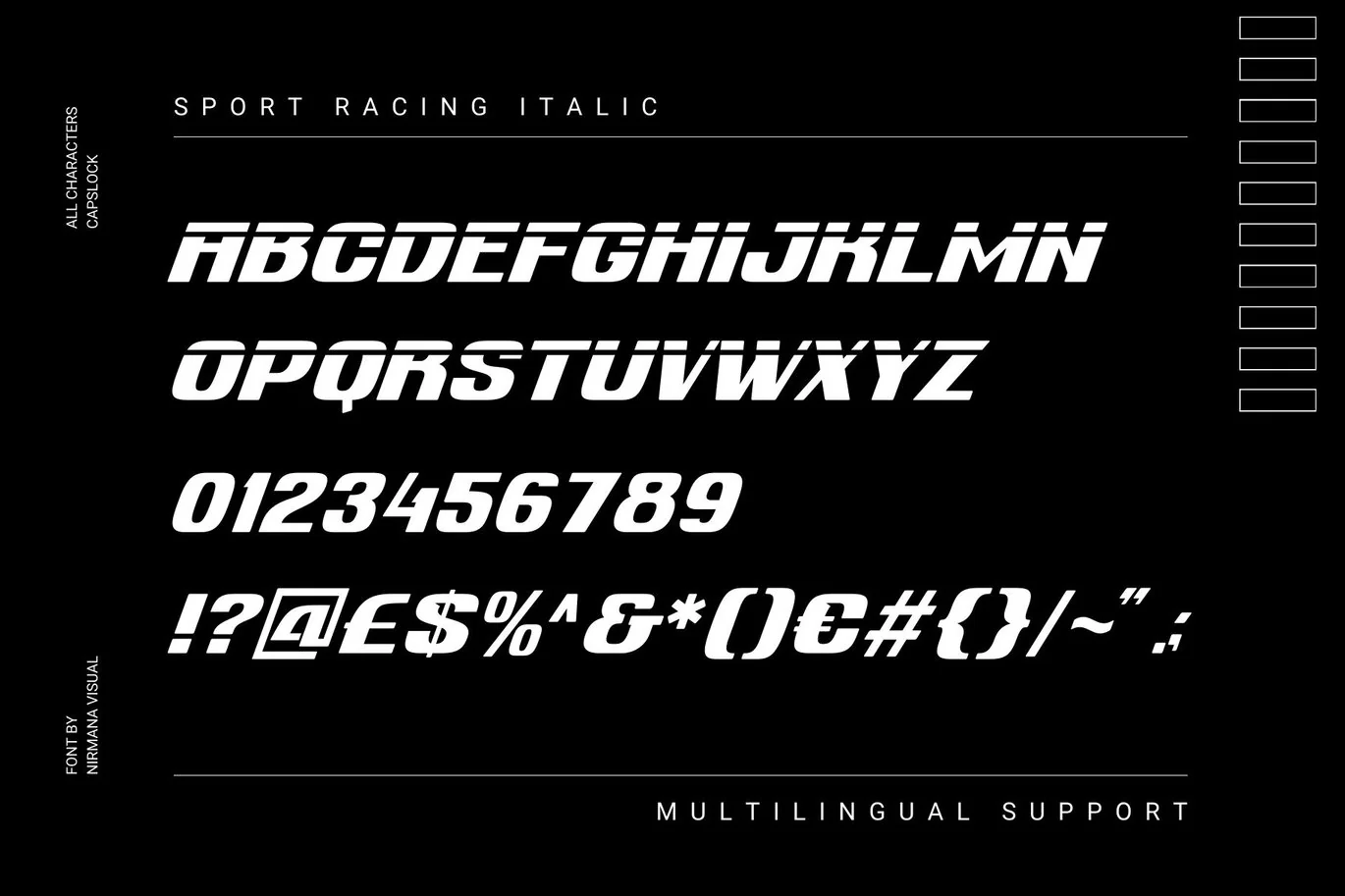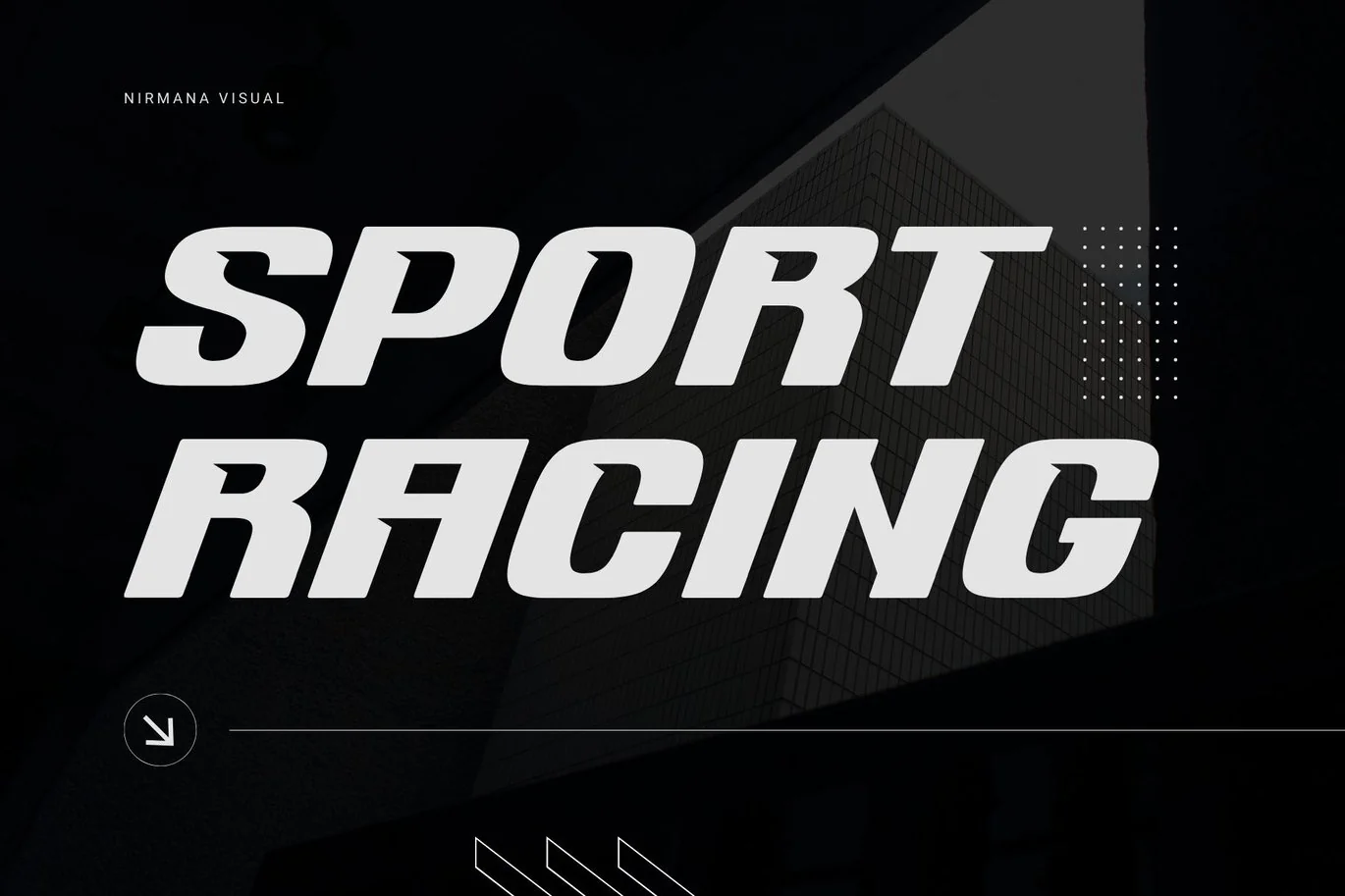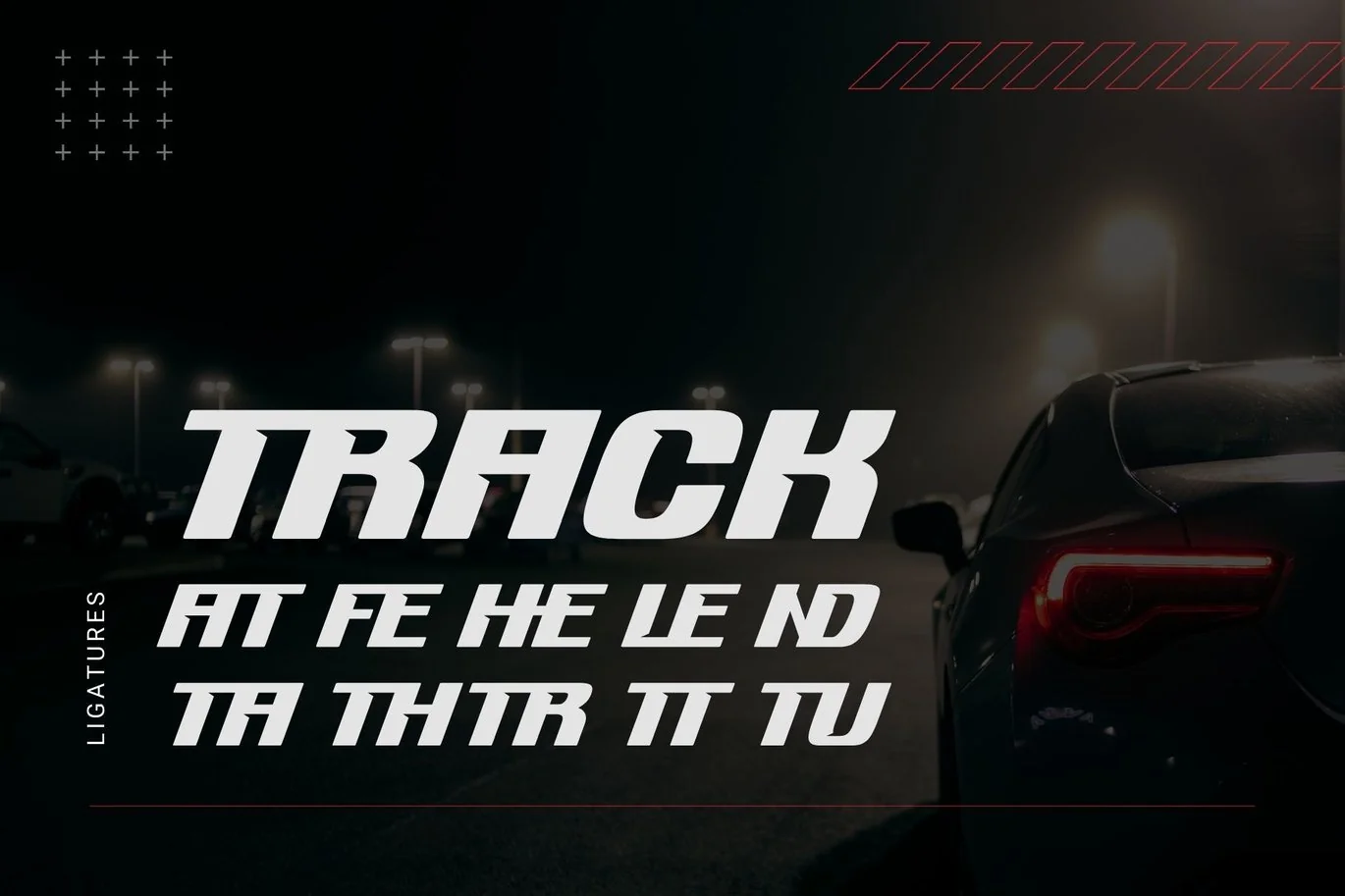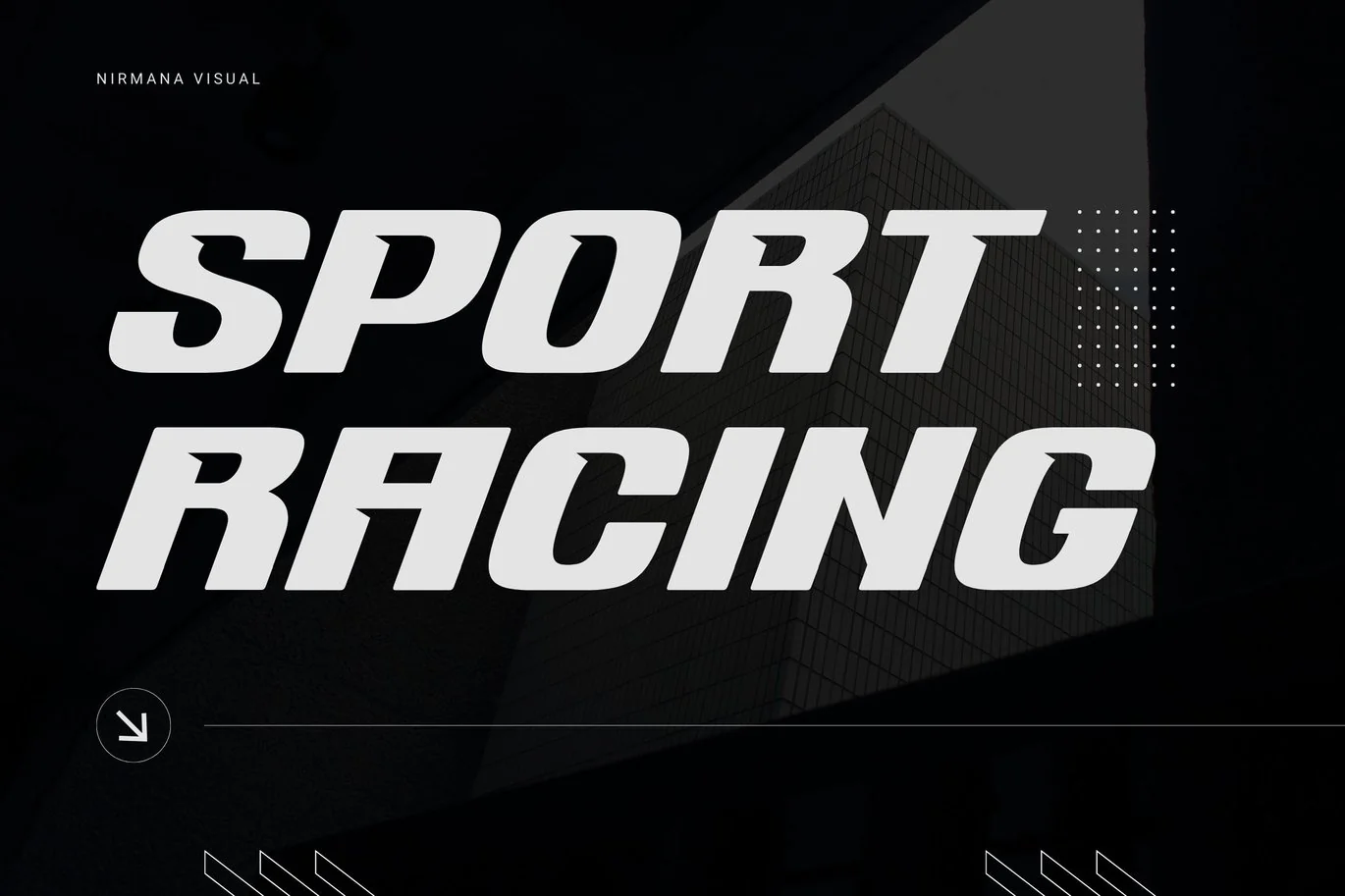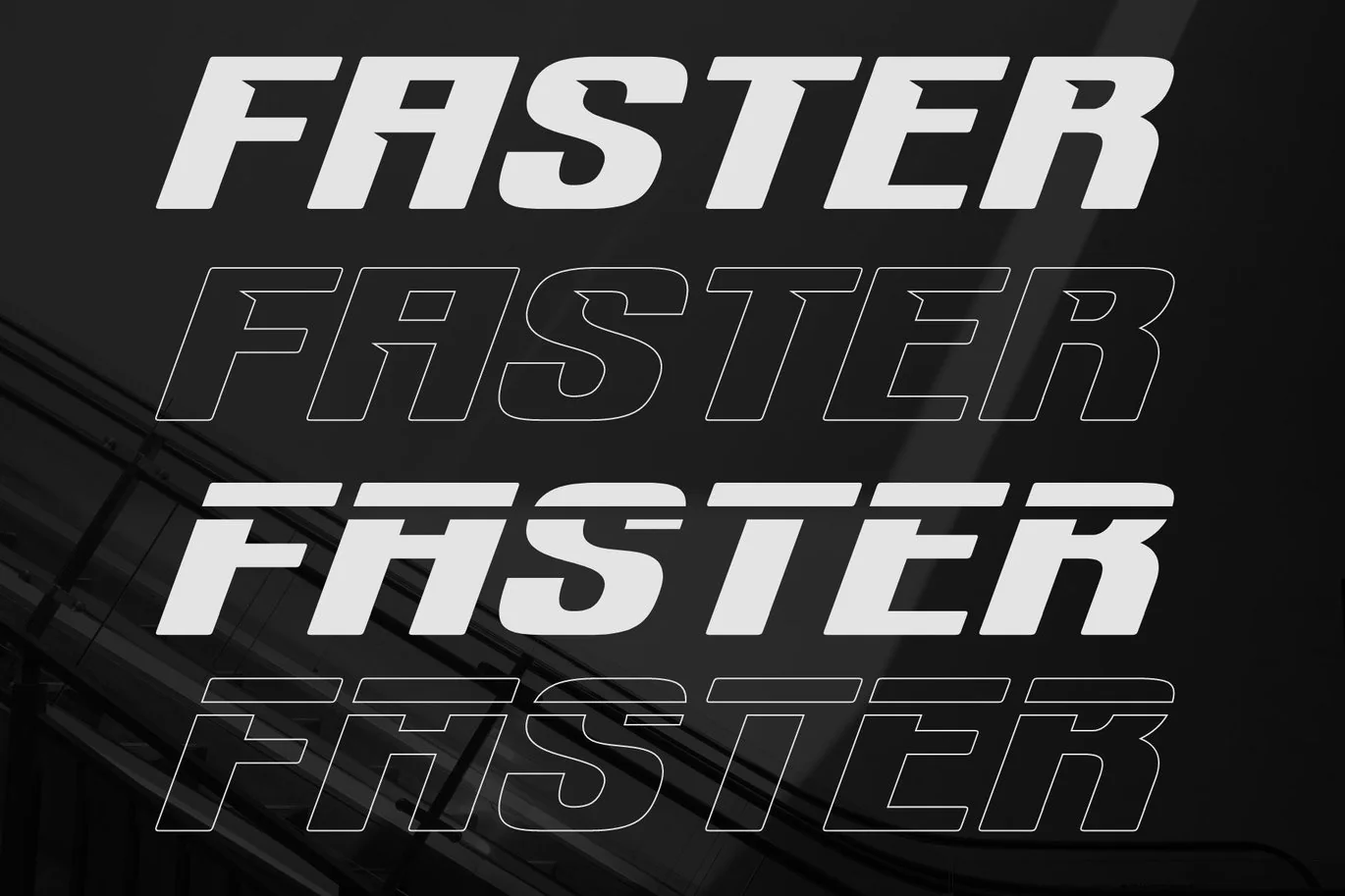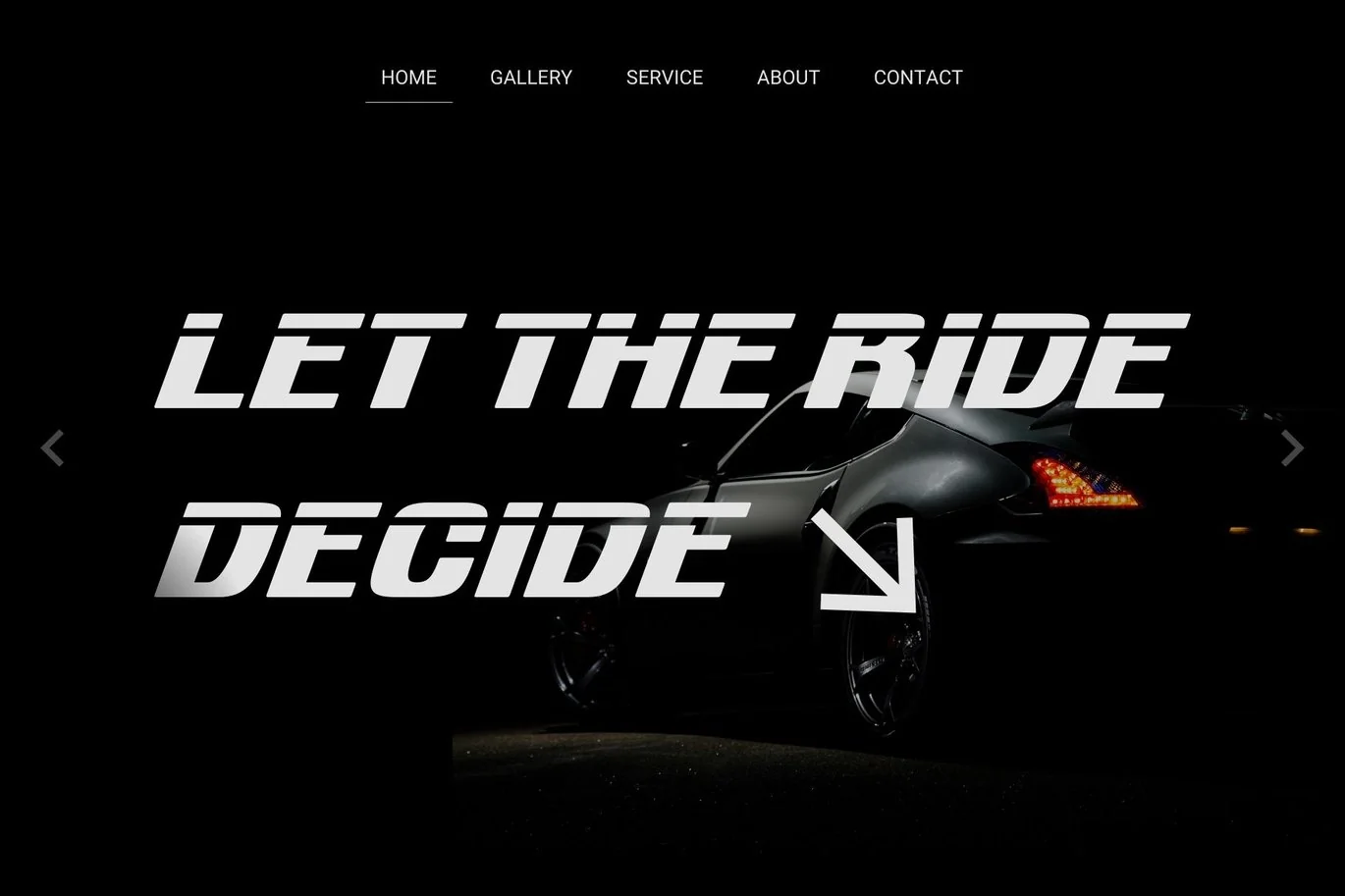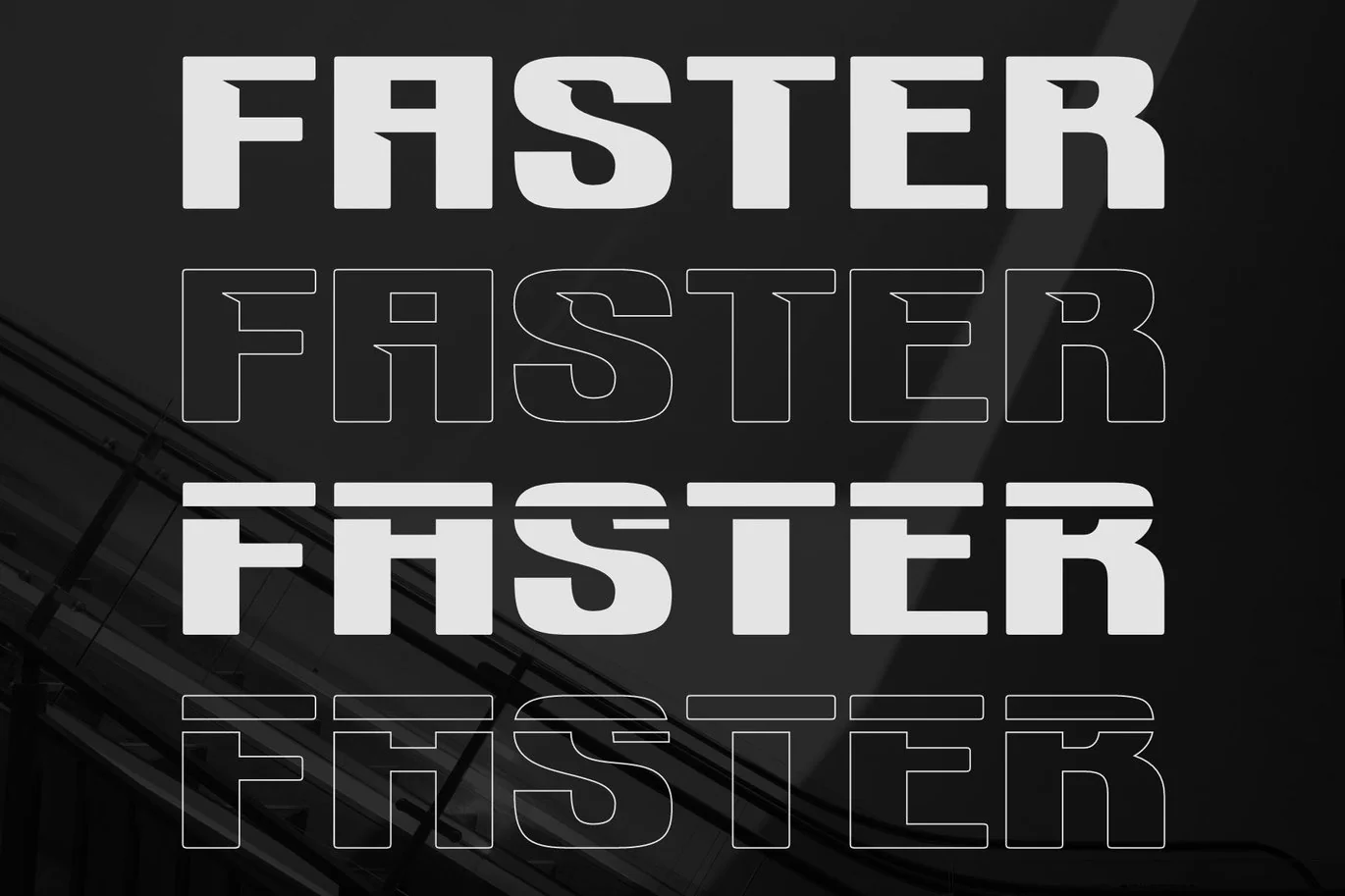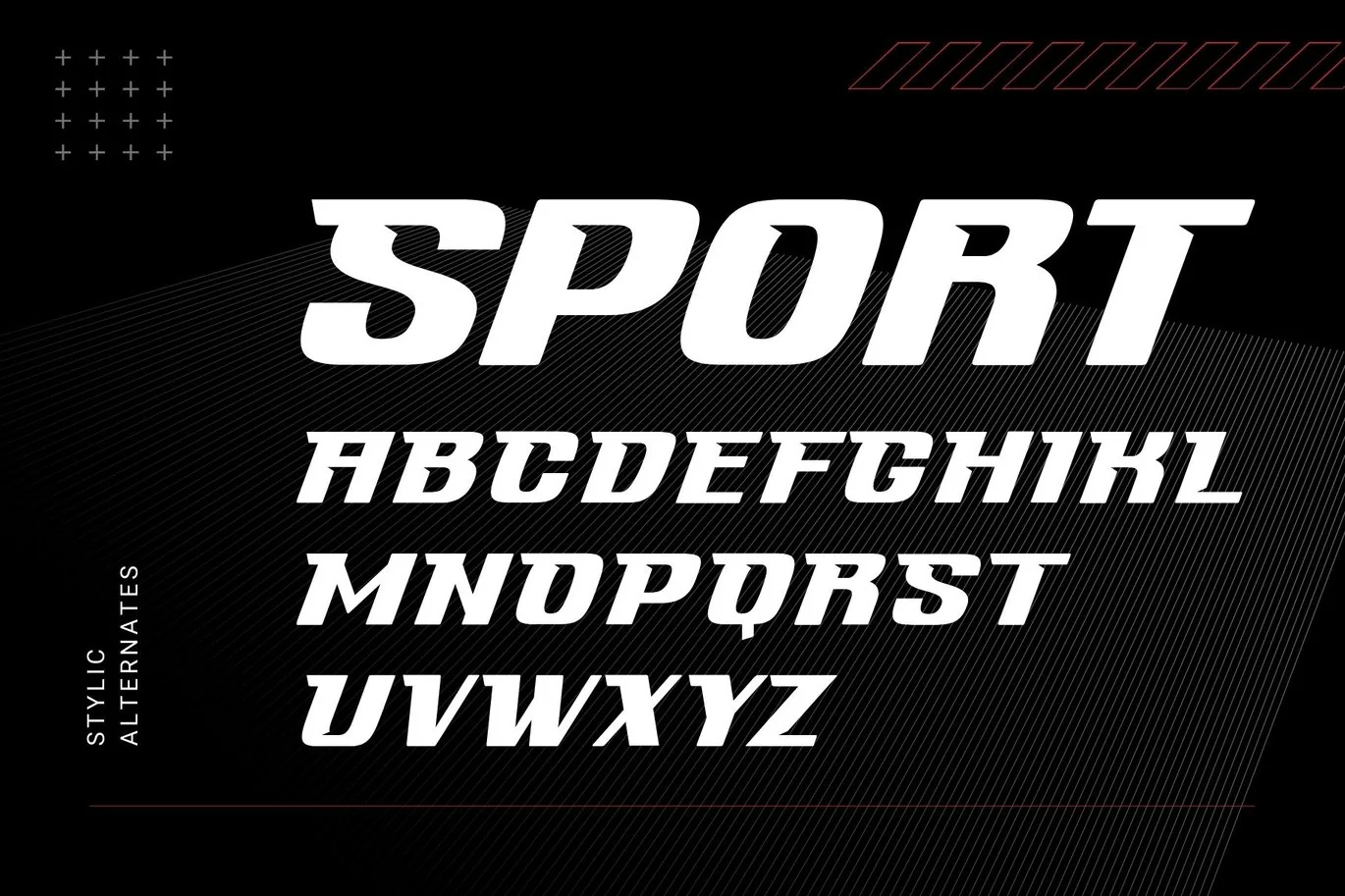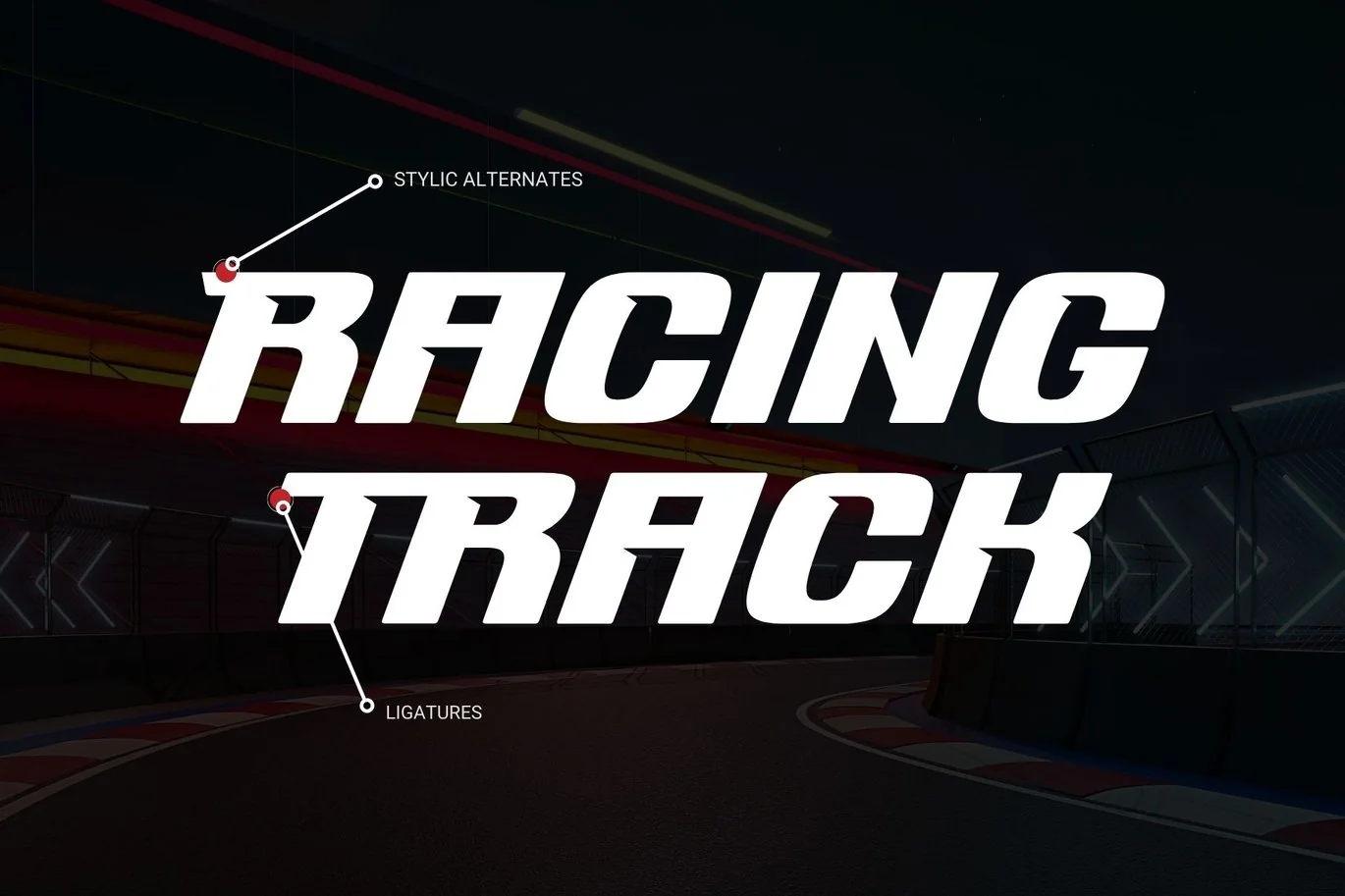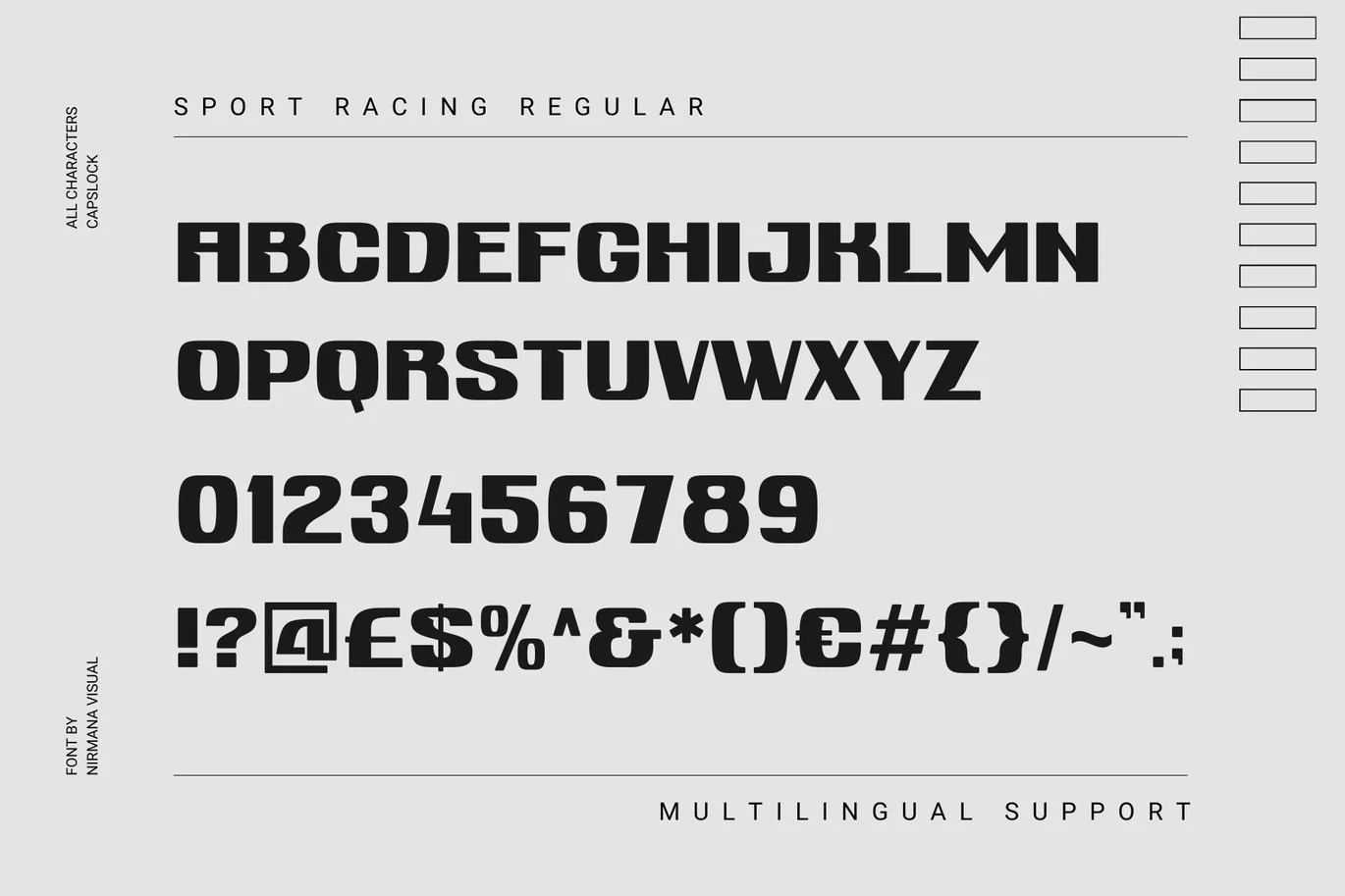
Sport Racing – Logo font
Sport Racing – Sport Display with strong and Sporty.
very suitable for the title, logo, typography, clothes, magazines, brochures, packaging and much more for your design needs, making your designs more modern and professional.